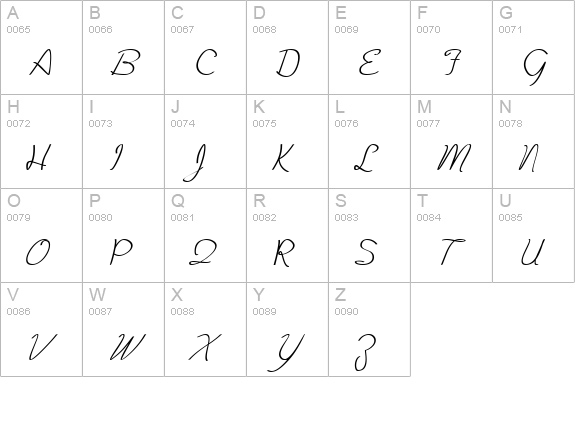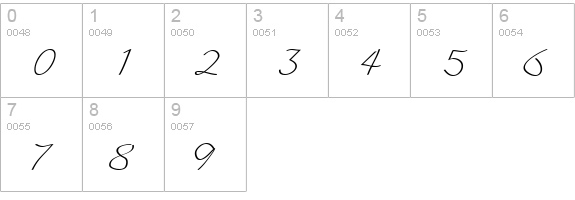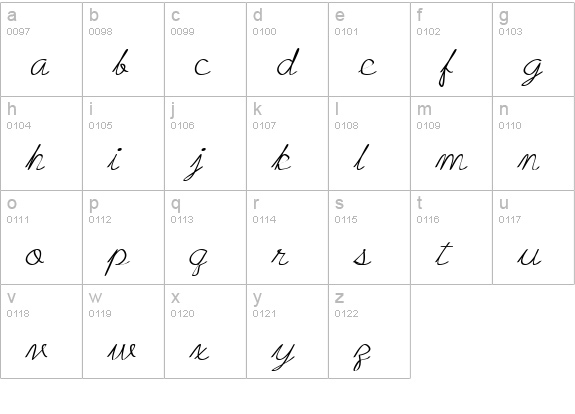
Zcript Plain Font Details
Zcript Plain font is a versatile and elegant typeface that combines classic elements with a modern twist. Its clean lines and simple yet sophisticated design make it perfect for a wide range of creative projects, from branding to packaging to invitations. The flowing curves and unique character shapes give this font a distinctive and eye-catching look that will make your text stand out. What's even better is that Zcript Plain font is available for free download at FontsMarket.com. This means you can easily access this high-quality font and use it in your designs without any cost. Whether you're a designer looking to add a touch of elegance to your work or someone in need of a stylish font for personal projects, Zcript Plain font is the perfect choice. Download it today and elevate your designs with this beautiful typeface.